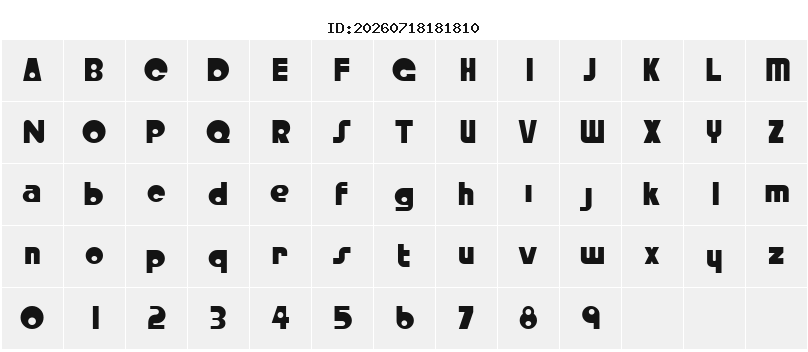
• Font Name: Crystal Radio Kit
About Crystal Radio Kit.ttf
Crystal Radio Kit.ttf is a modern, elegant sans-serif font designed for ultimate readability and visual harmony. Perfect for branding, headlines, web design, and print materials.